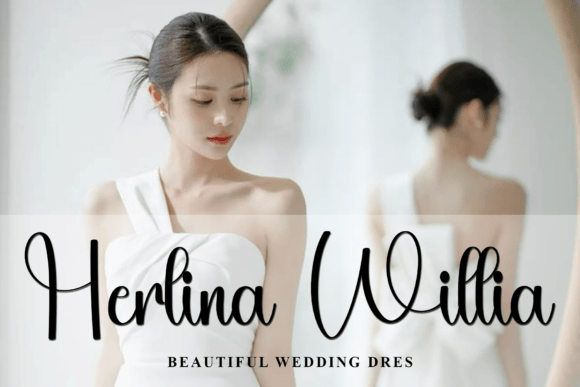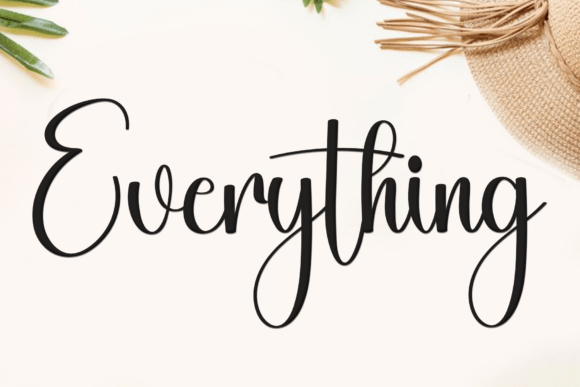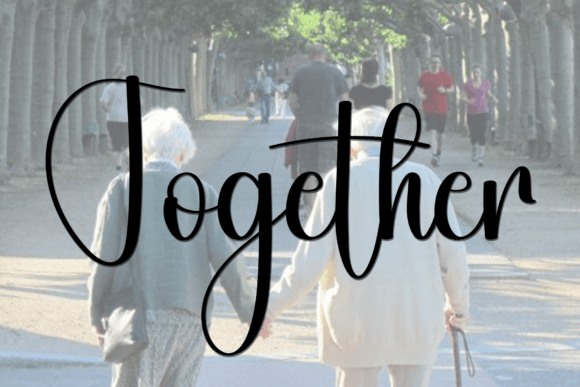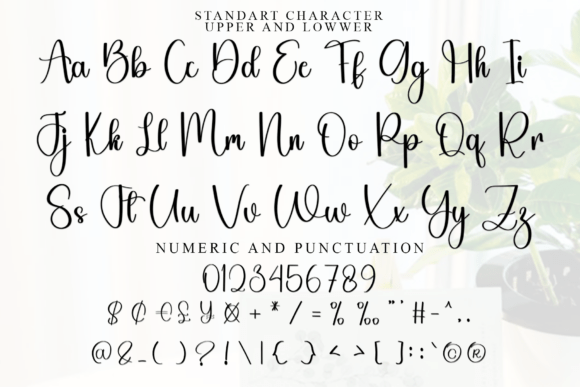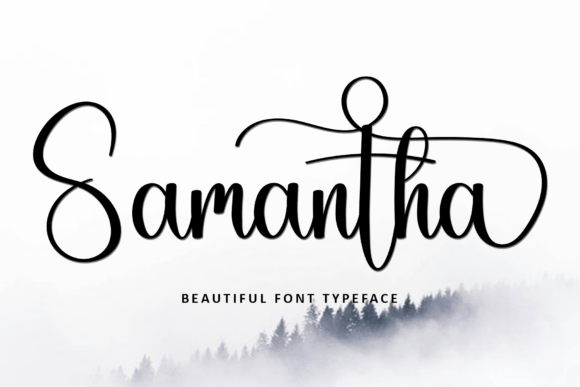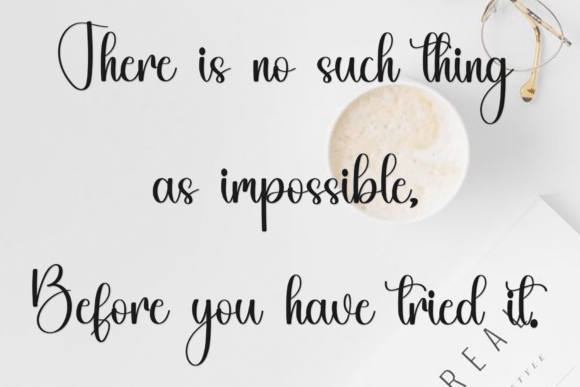
Introduction to Background Magnolia Font
This handwritten script font blends casual charm with a modern twist, featuring fluid strokes and natural curves that mimic real handwriting.
Ideal for branding, wedding invites, quotes, and lifestyle blog graphics, it brings a personal and stylish feel to any project With its smooth flow and subtle elegance, this font is perfect for creating heartfelt and visually appealing designs.